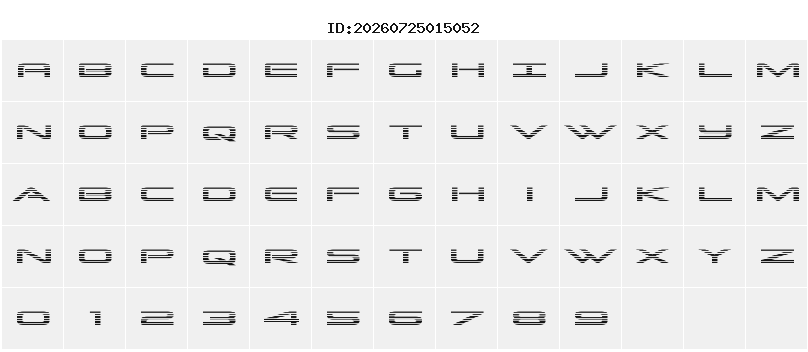
• Font Name: Grand Sport Gradient
About Grand Sport Gradient.ttf
Grand Sport Gradient.ttf is a modern, elegant sans-serif font designed for ultimate readability and visual harmony. Perfect for branding, headlines, web design, and print materials.